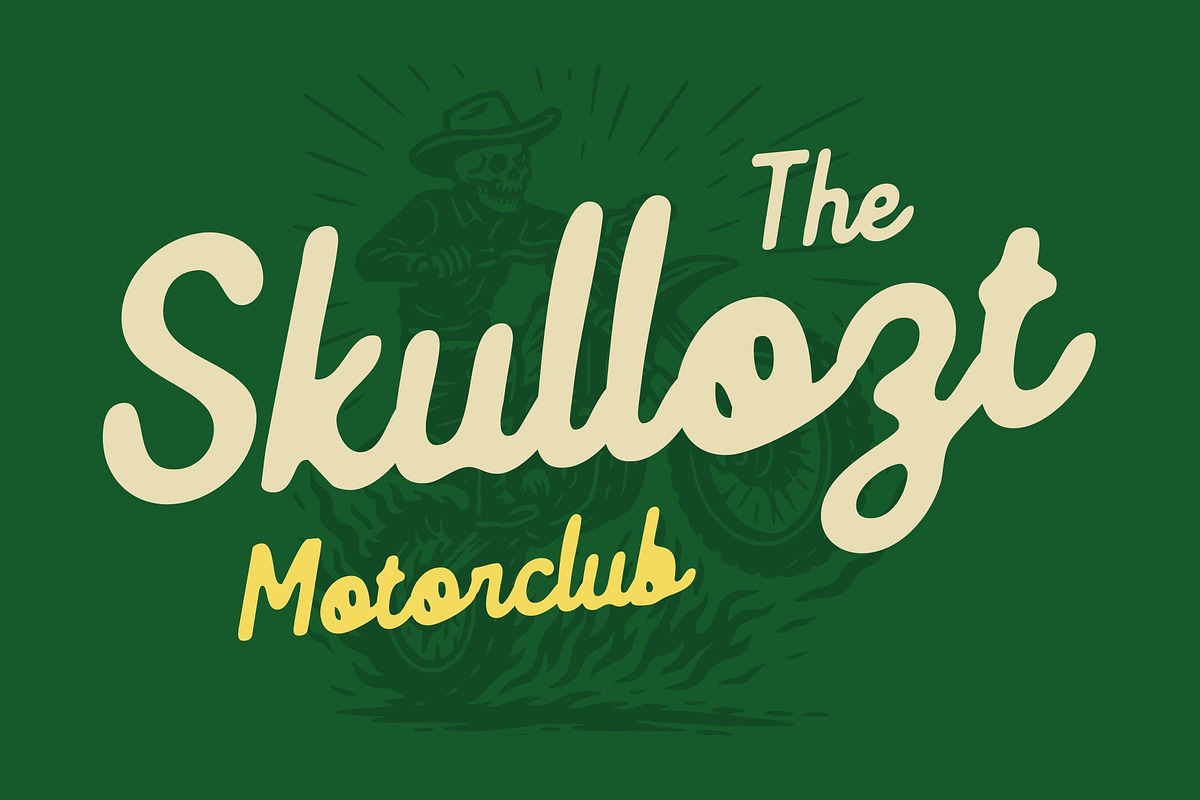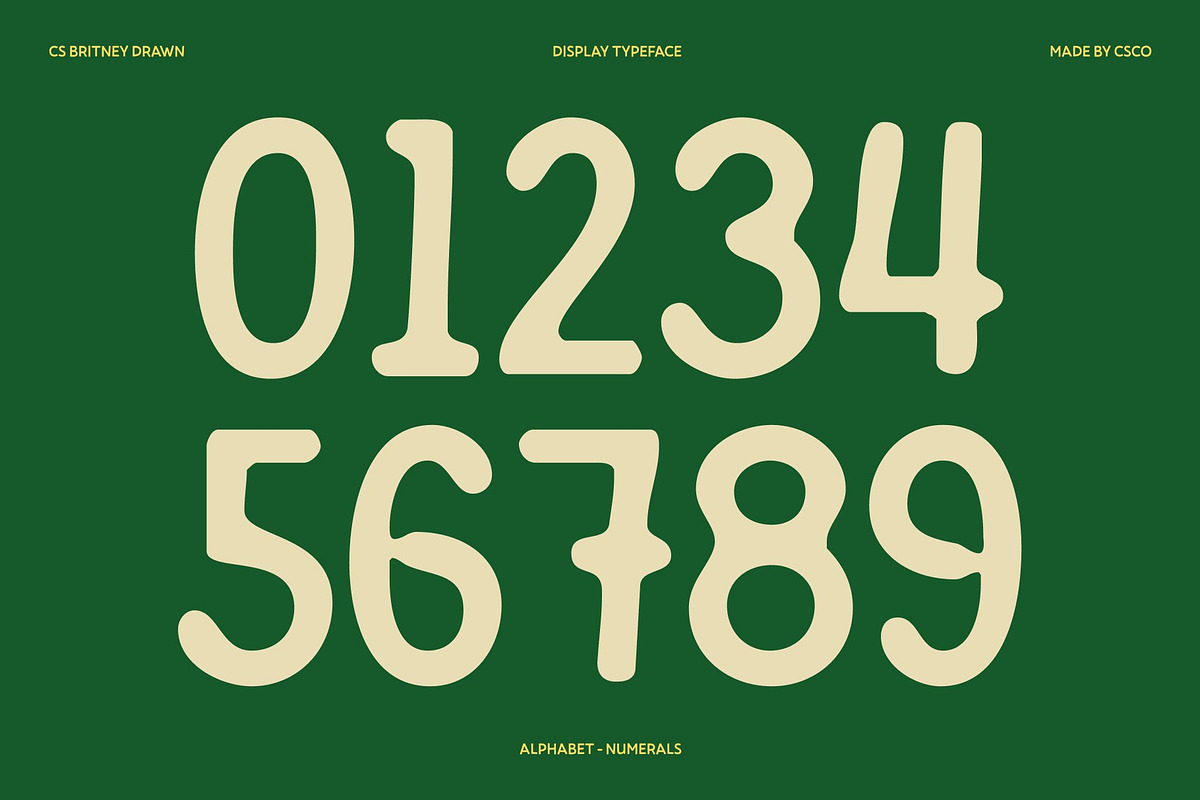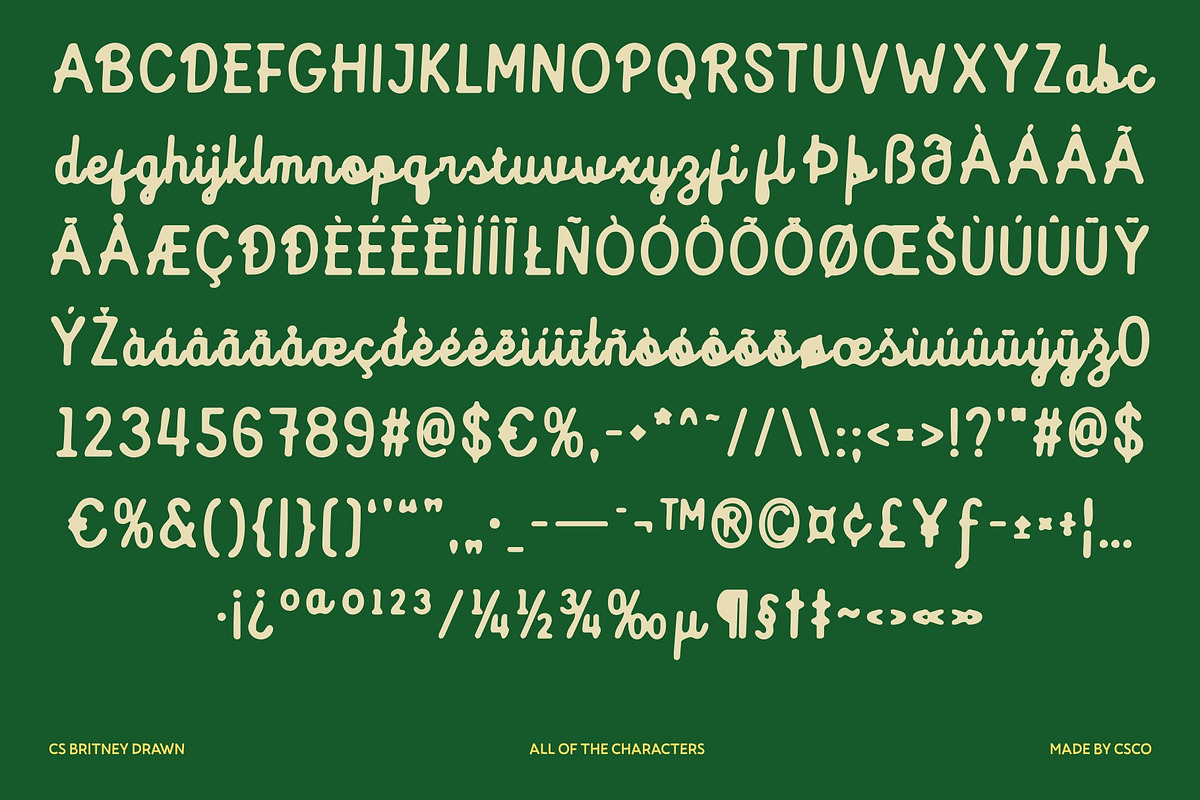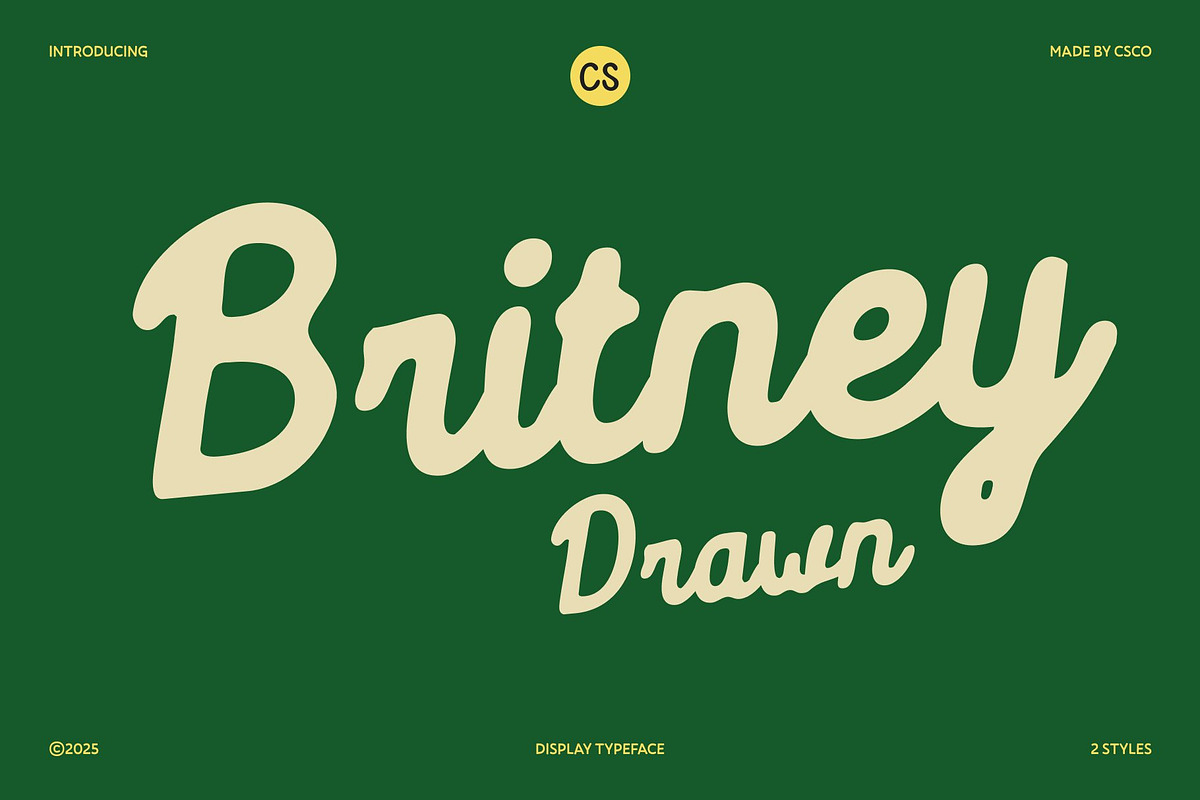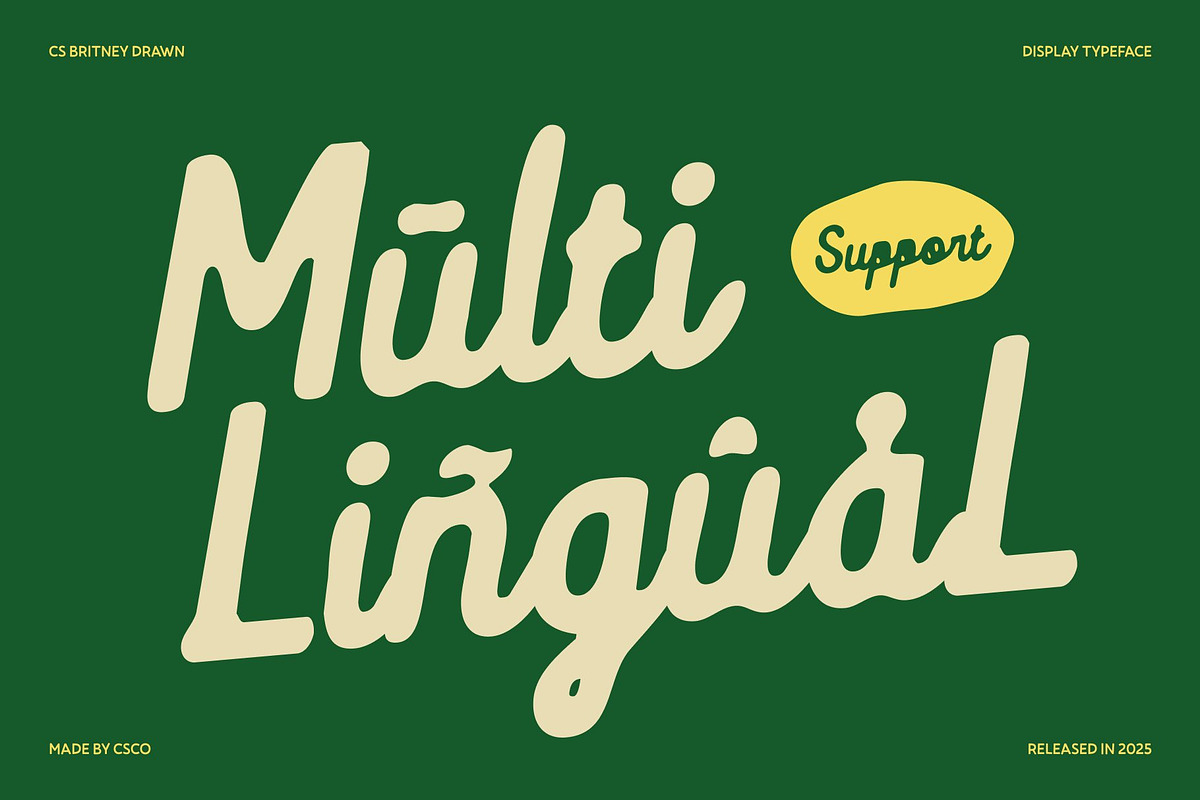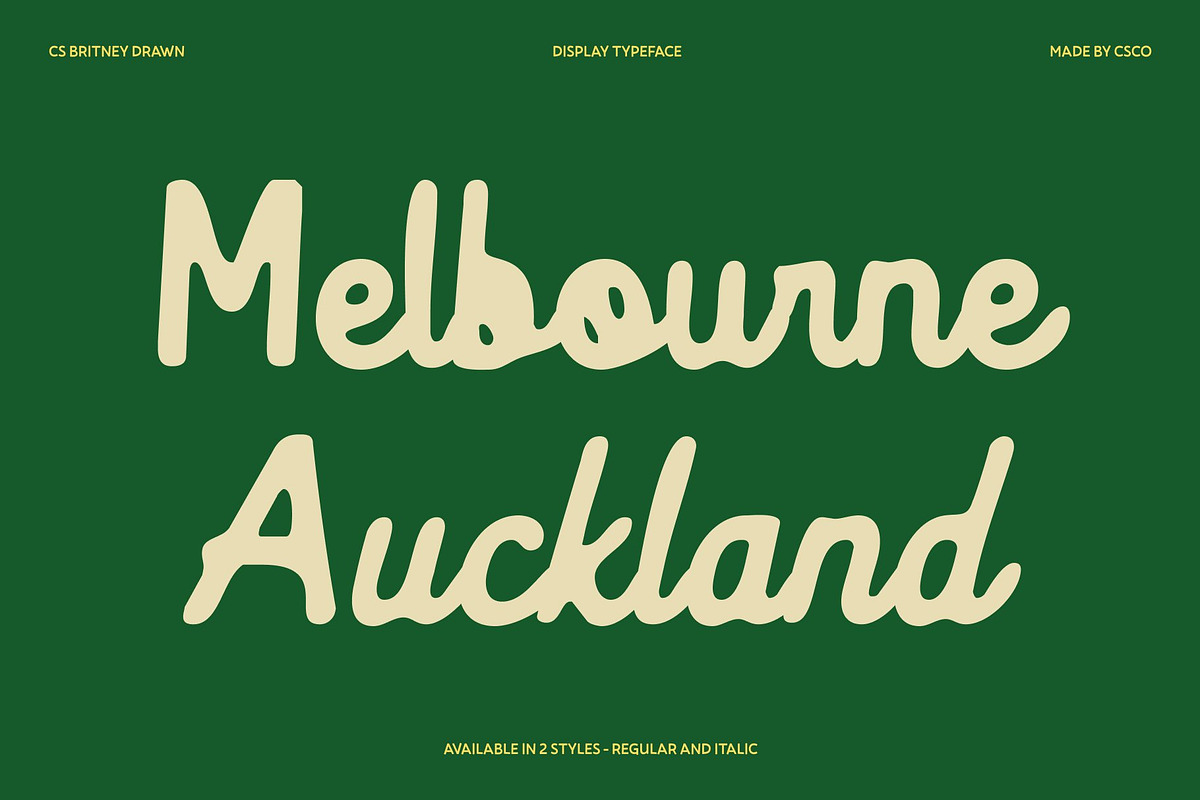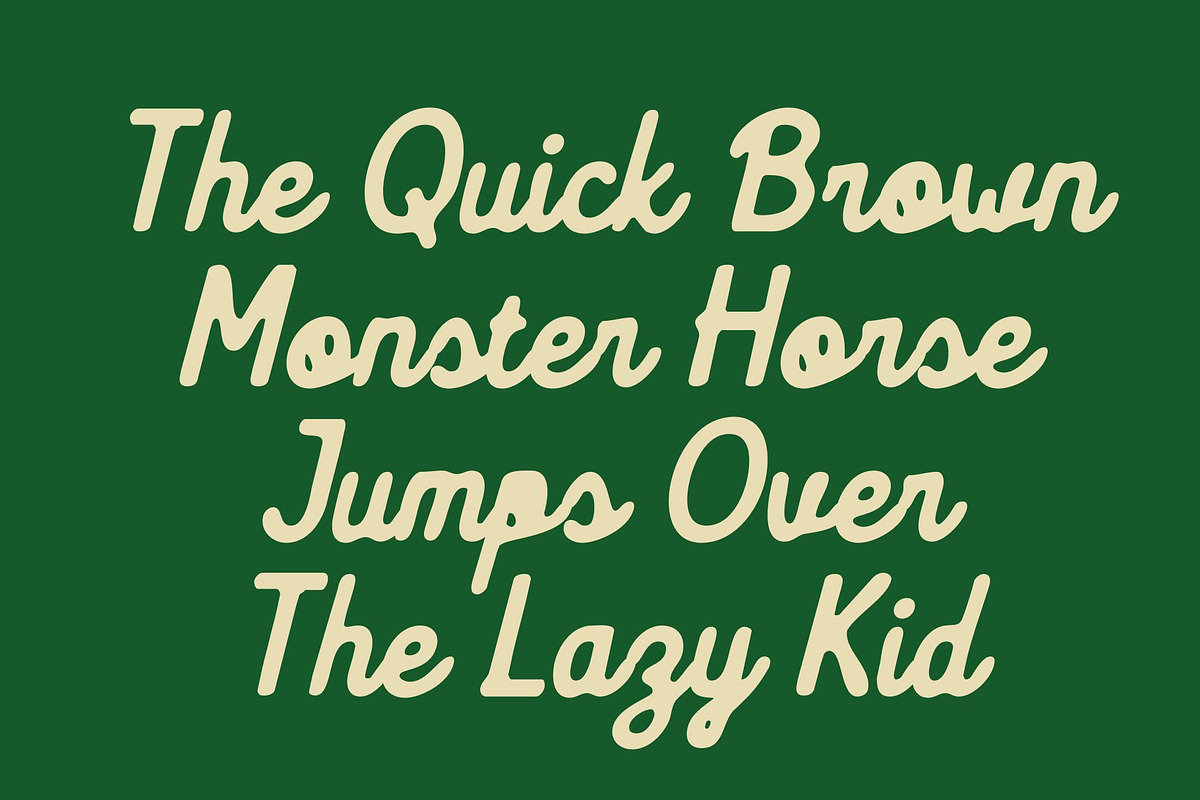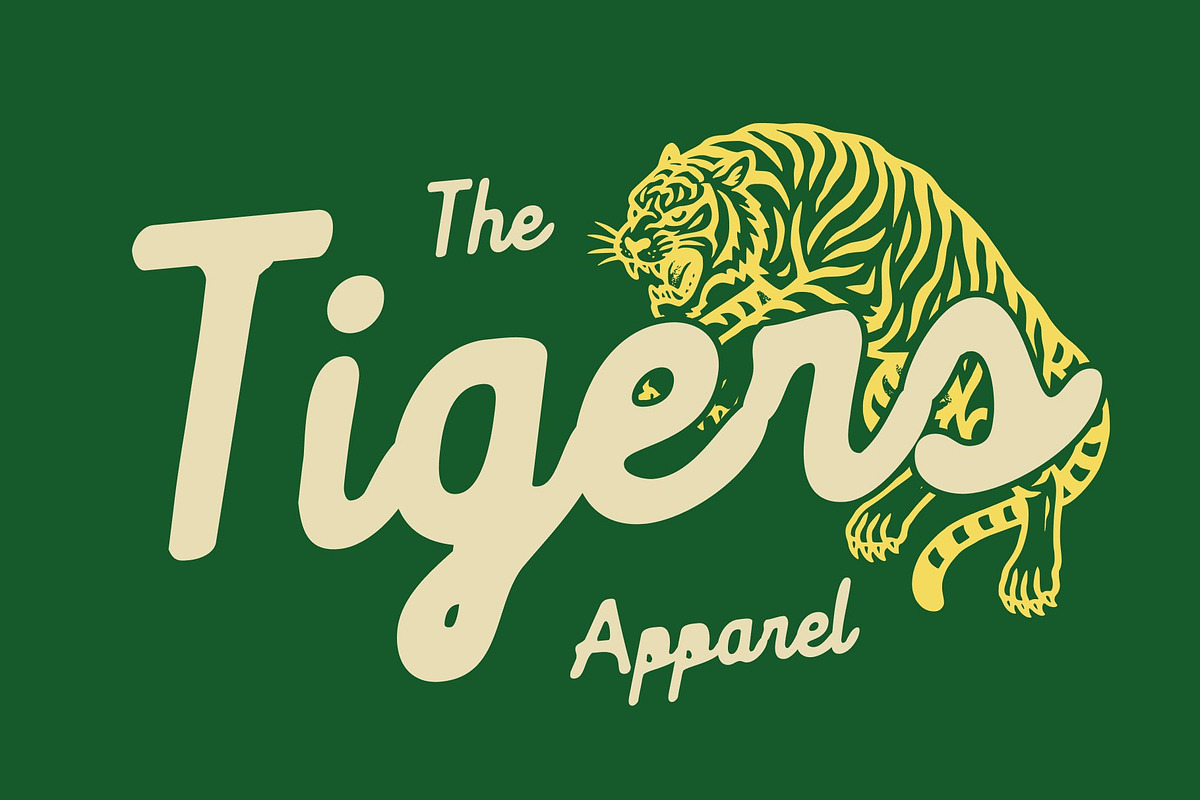
CS Britney Drawn
CS Britney Drawn – Modern Script Font: Soft, Feminine, and Expressive
Graceful Script with Feminine Charm This is a modern script font that captures the beauty and elegance of handwritten lettering. Its flowing strokes, delicate curves, and refined details bring a soft, feminine touch to every design. Perfect for projects that require sophistication and charm, this font adds an intimate, luxurious feel to wedding invitations, boutique branding, or emotionally driven creative work.
Delicate Yet Confident Letterforms The carefully balanced letterforms of radiate confidence while maintaining a gentle elegance. Smooth connections and rhythmic flow make each word appear cohesive and polished, while subtle handmade nuances give the font a unique, expressive character. It’s ideal for designs that aim to combine refinement with personality and warmth.
Artistic Texture and Hand-Drawn Personality Enhanced by a drawn effect, features a soft, artistic texture that adds authenticity and charm. The subtle imperfections and handcrafted touches create depth and visual interest, giving projects a more personal and approachable feel without compromising sophistication.
Versatile for Elegant and Romantic Design This font excels across a wide range of creative applications, from luxury branding and fashion look books to social media visuals and stationery. Its blend of graceful flow, feminine elegance, and handmade artistry makes it a perfect choice for designers seeking a script that delivers both emotional impact and modern style, leaving every project visually captivating and memorable.